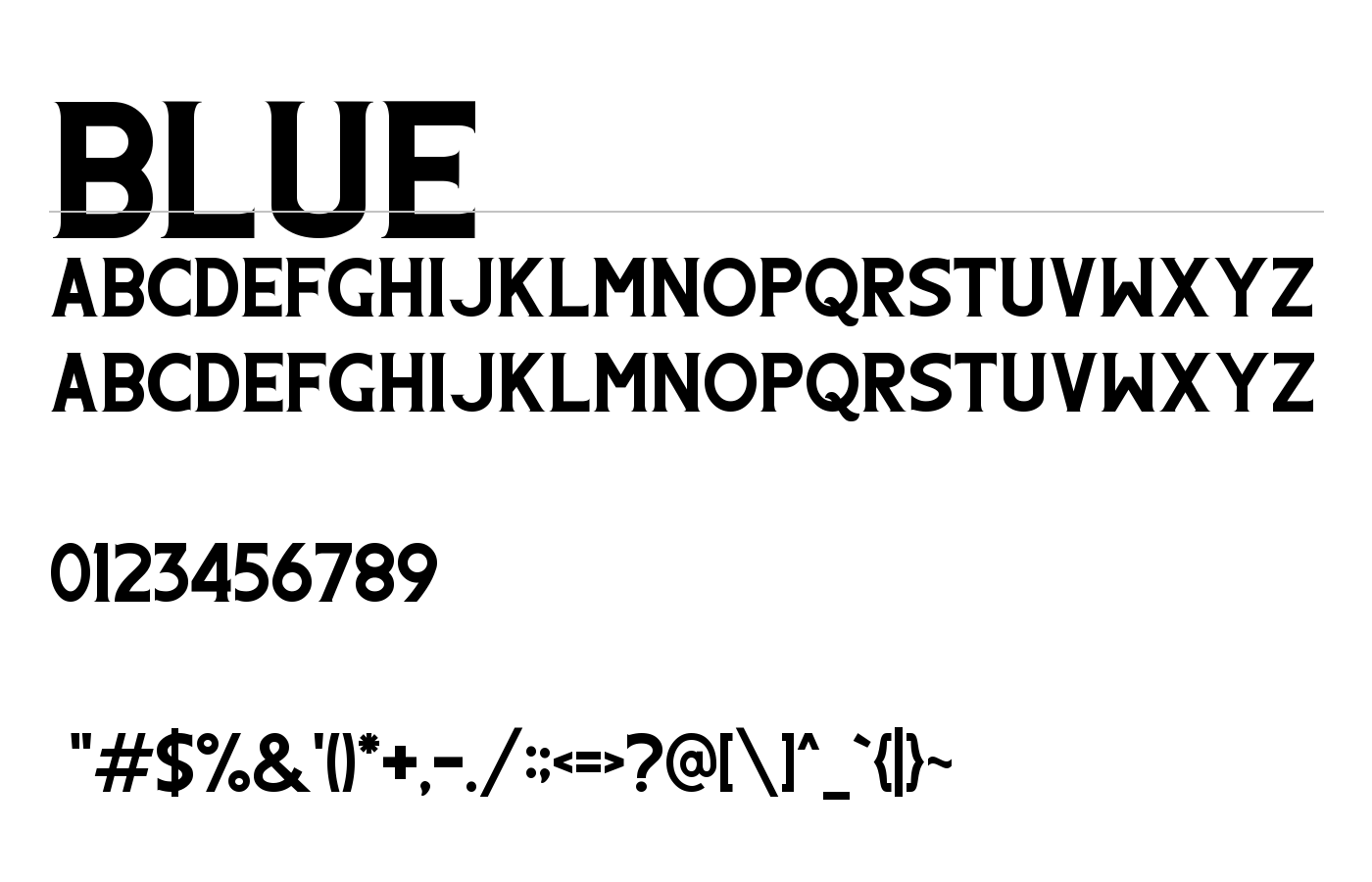
Blue Font is a bold, slab serif typeface with strong, confident letterforms featuring thick, bracketed serifs and moderate contrast between strokes. Its compact width and geometric shapes give it a modern yet slightly vintage feel, making it ideal for impactful headlines, logos, and branding projects that require a mix of strength and style. This font works best where you want to convey authority and sophistication with a distinctive, memorable look.
Blue Font
About Blue Font
| Font family | Blue Font |
| Designer | Pen Culture |